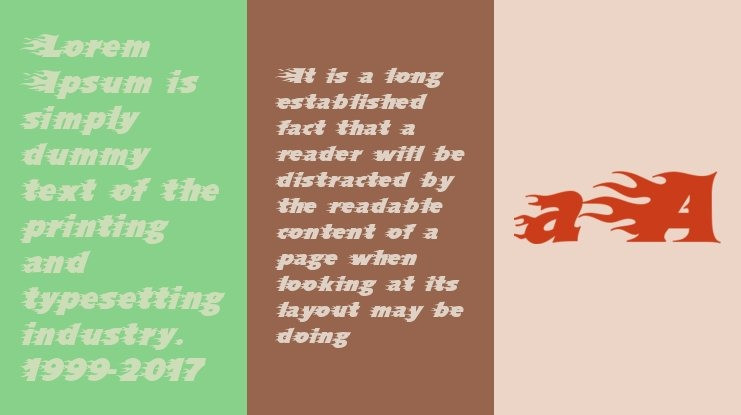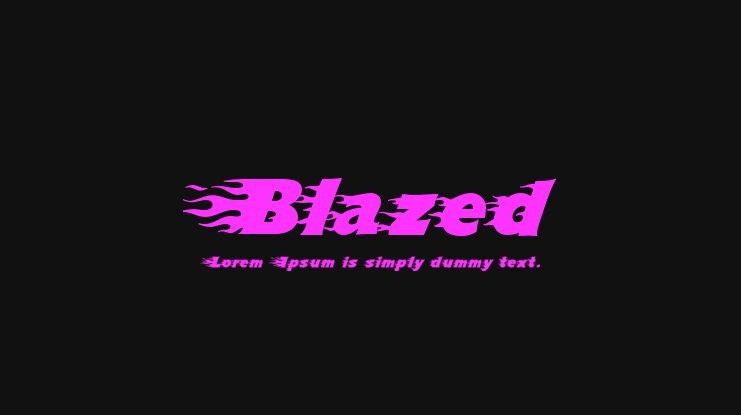
Blazed Font, clean & calmly fire font combined with chaotic taste! Looks good for horror, sport, music or etc.
| Designer Name: | Bright Ideas |
| Classification: | Display Fonts, Modern Fonts |